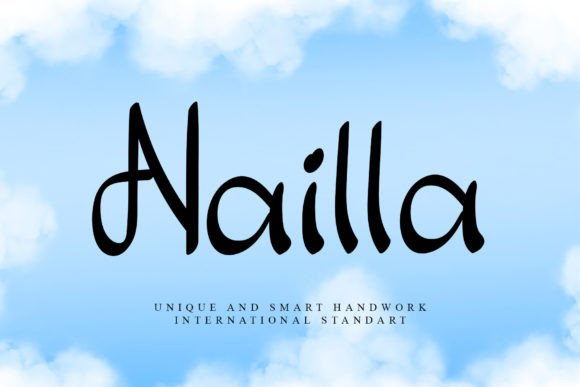
Unleash your creativity with Nailla Font, the whimsical handwritten font that adds a touch of charm to your designs. Its playful and bouncy characters dance across the page, weaving a tale of joy and individuality. Let Nailla take you on a journey of self-expression, infusing your projects with a delightful dose of personality.
Step into the world of monograms with Nailla, where your initials take center stage. Create personalized logos, stationery, and home décor that reflect your unique style. With Nailla, your monograms will be anything but ordinary – they'll be a reflection of your vibrant spirit, making a statement wherever they go.
Nailla is more than just a font; it's an invitation to unleash your creativity. Its playful nature lends itself to a myriad of creative projects, from heartfelt greeting cards to eye-catching social media posts. Let Nailla add a splash of whimsy to your invitations, posters, and even your everyday journaling.
So, embrace the magic of Nailla Font and embark on a creative adventure like no other. Let its cheerful characters ignite your imagination and create designs that captivate and inspire. Make your mark on the world, one handwritten masterpiece at a time.